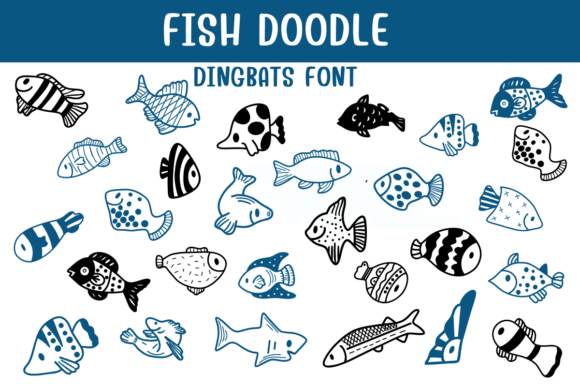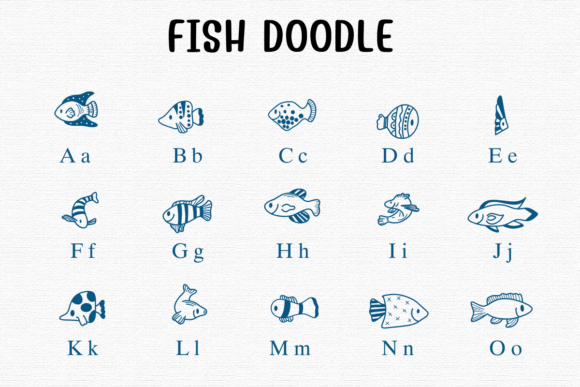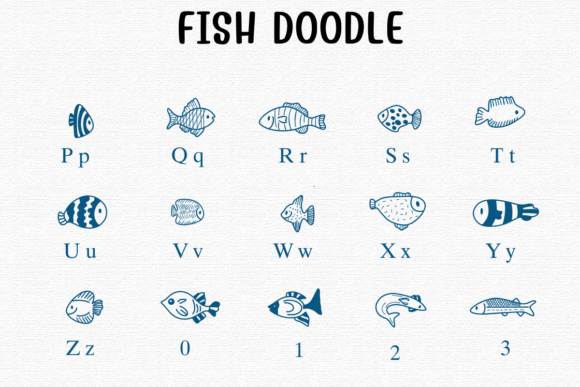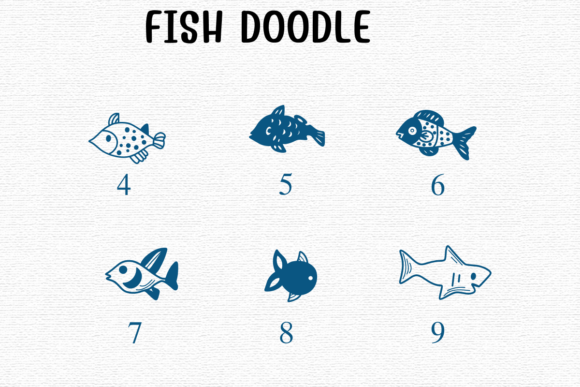
Fish Doodle Font
About the Fish Doodle Font
The Fish Doodle Font is here to transform your projects with its distinctive character and style. Fish Doodle is a playful dingbats font filled with a fun variety of whimsical fish illustrations. These hand-drawn aquatic icons are ideal for beach-themed designs, underwater adventures, kids’ materials, or ocean-inspired branding. From quirky guppies to shark silhouettes, these doodles bring a splash of creativity!
Fish Doodle Font shines in headlines, logos for children’s products, and playful social media graphics. It’s also effective for short, impactful text on packaging or posters relating to aquatic themes. However, its highly illustrative nature makes it unsuitable for body copy or UI elements requiring high readability.
The font’s playful personality pairs well with clean sans-serif fonts like Open Sans for body text, creating a balanced contrast between the whimsical illustrations and easily readable text. For a more sophisticated feel, consider pairing it with a delicate script font for supplementary text, or a geometric sans-serif for a modern twist.
Fish Doodle’s overall mood is lighthearted and fun, best suited for brands targeting a young audience or conveying a sense of adventure and carefree energy.
Fish Doodle Font Example